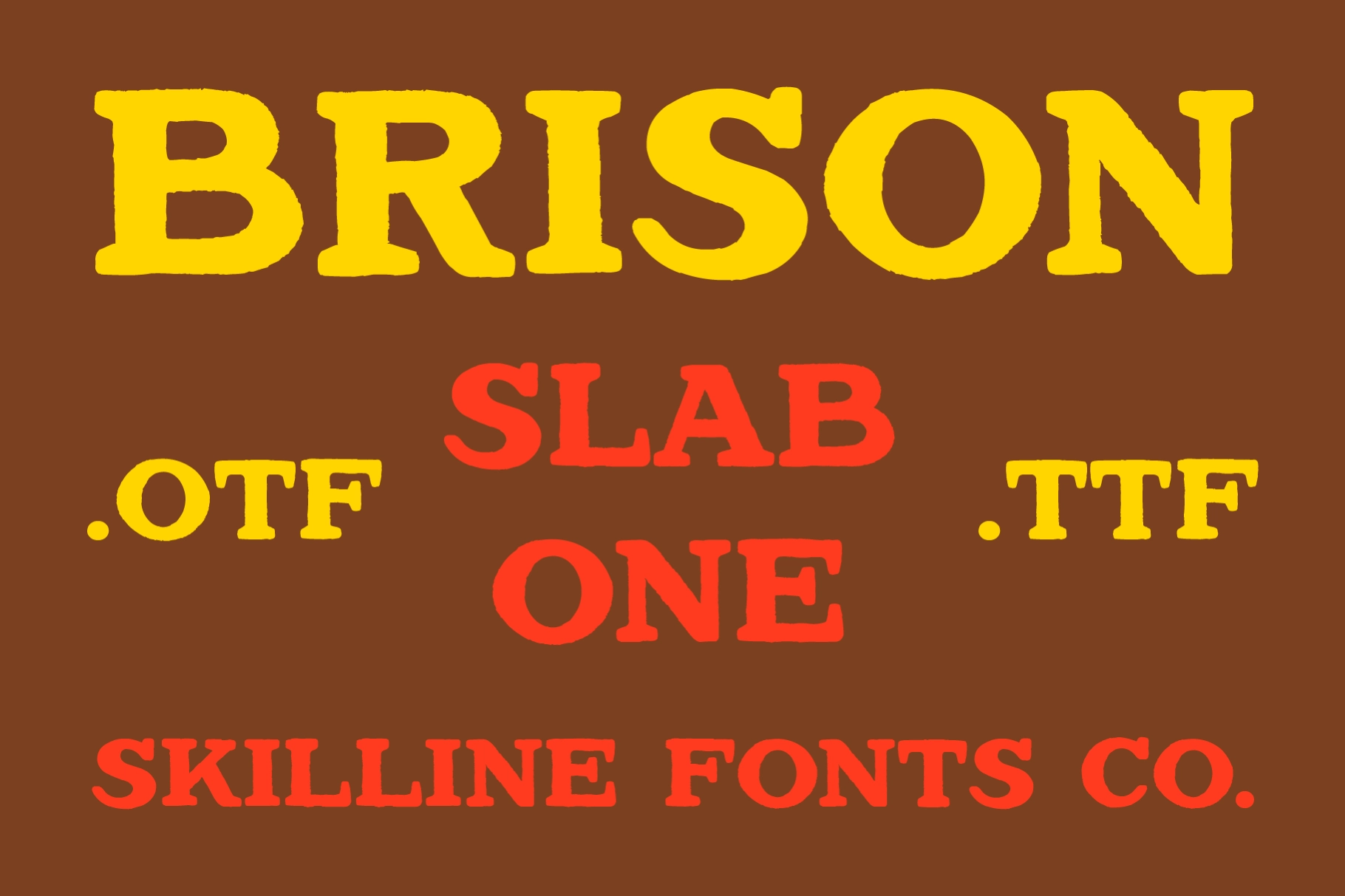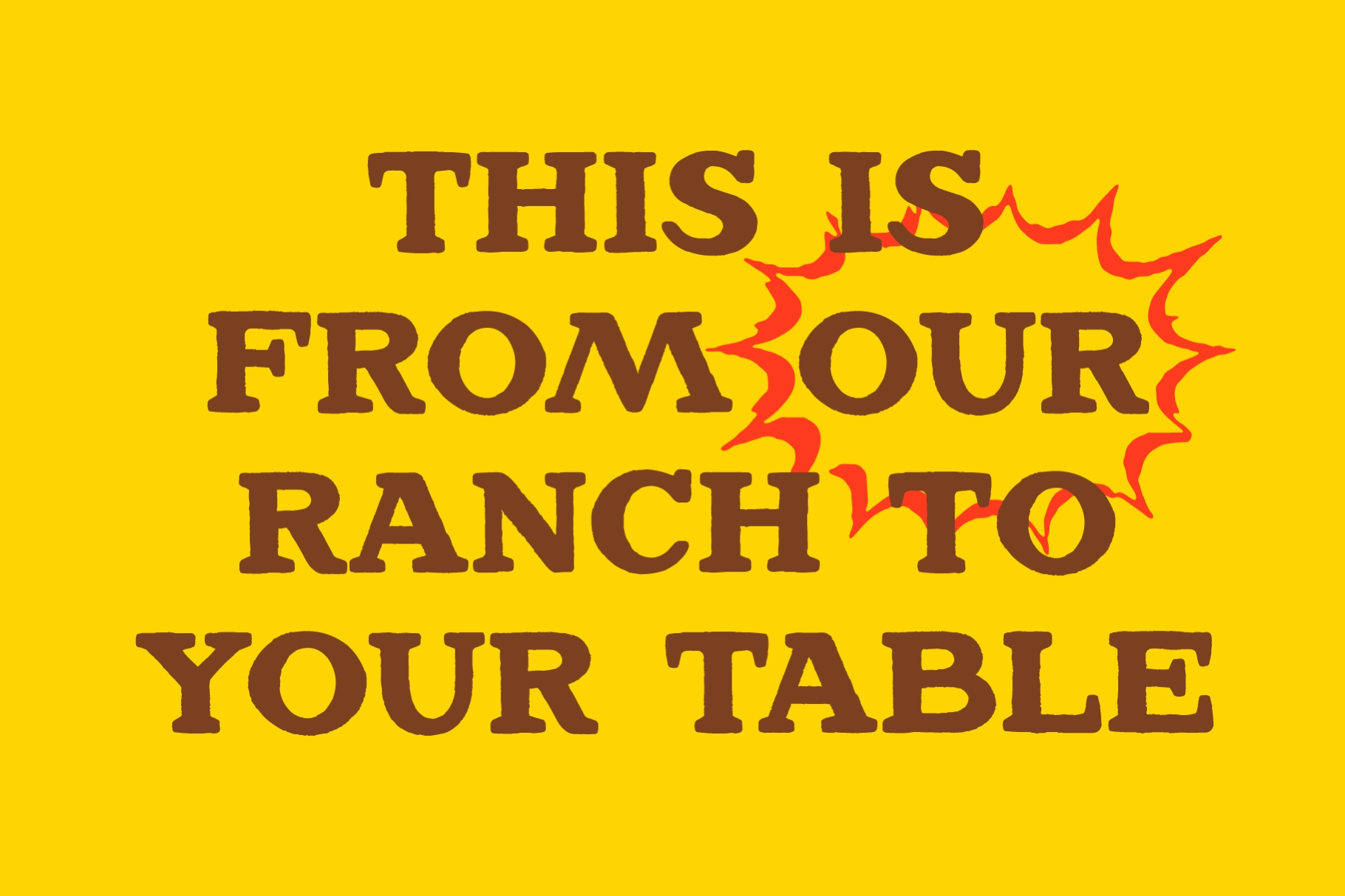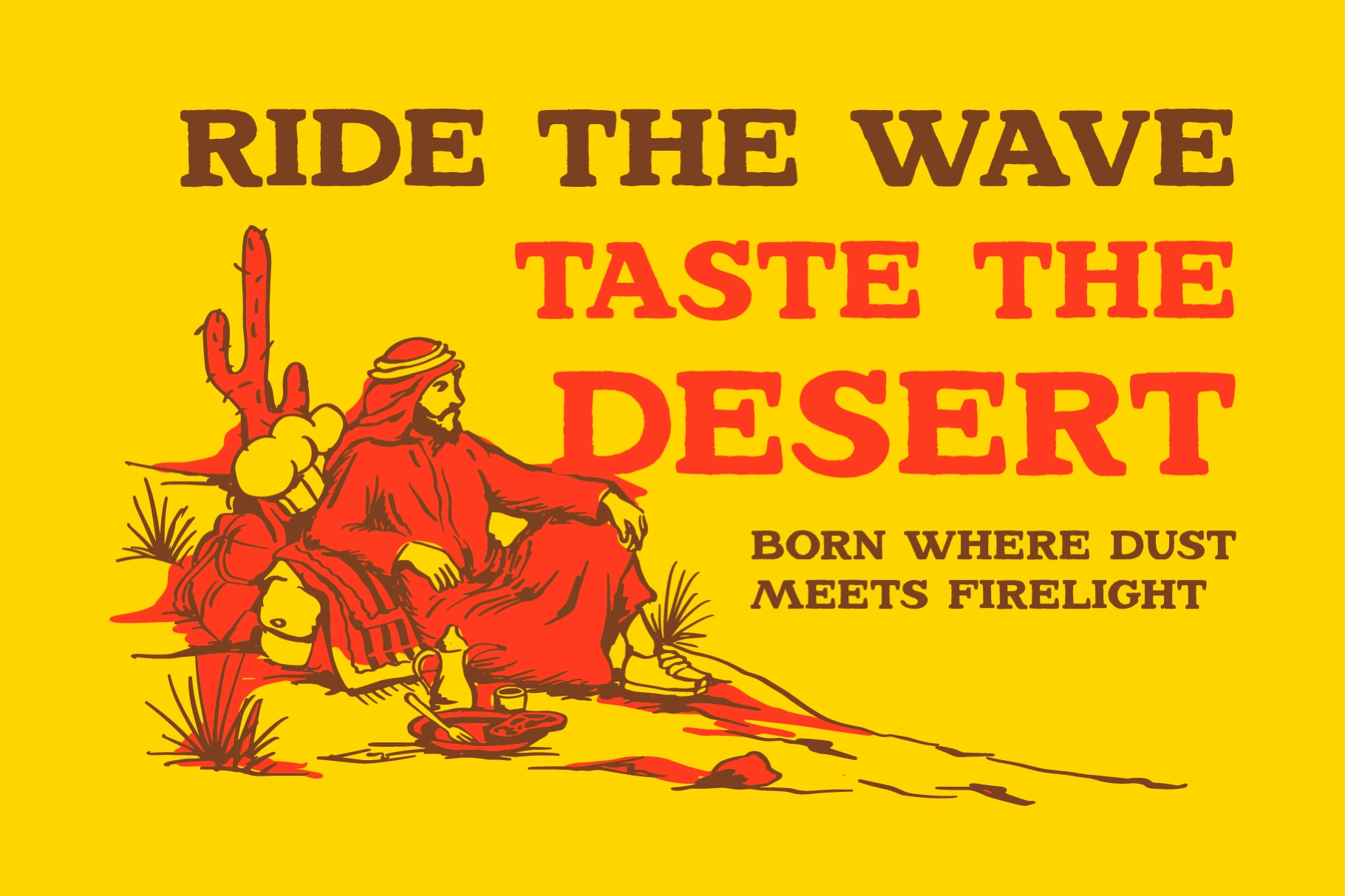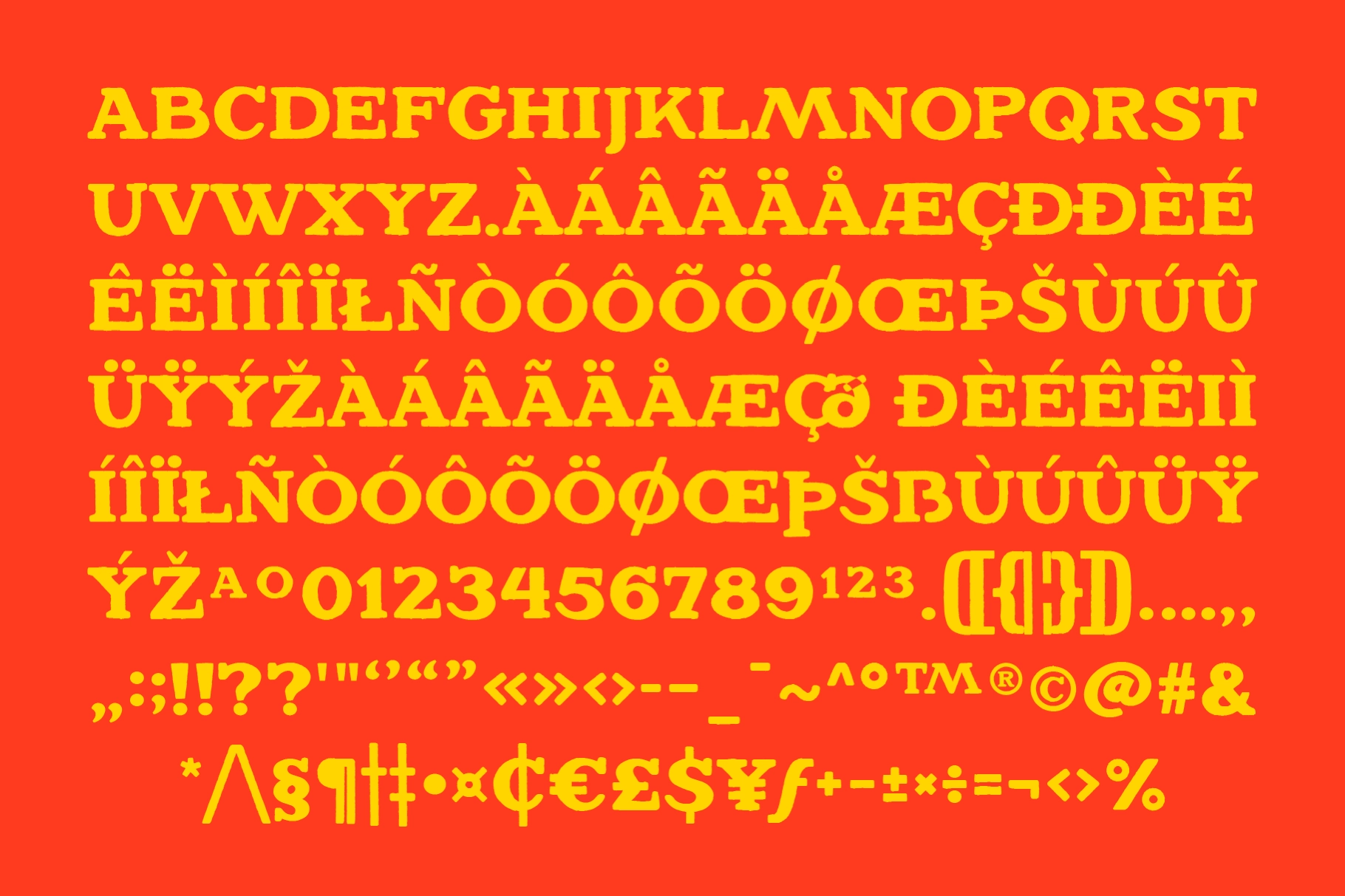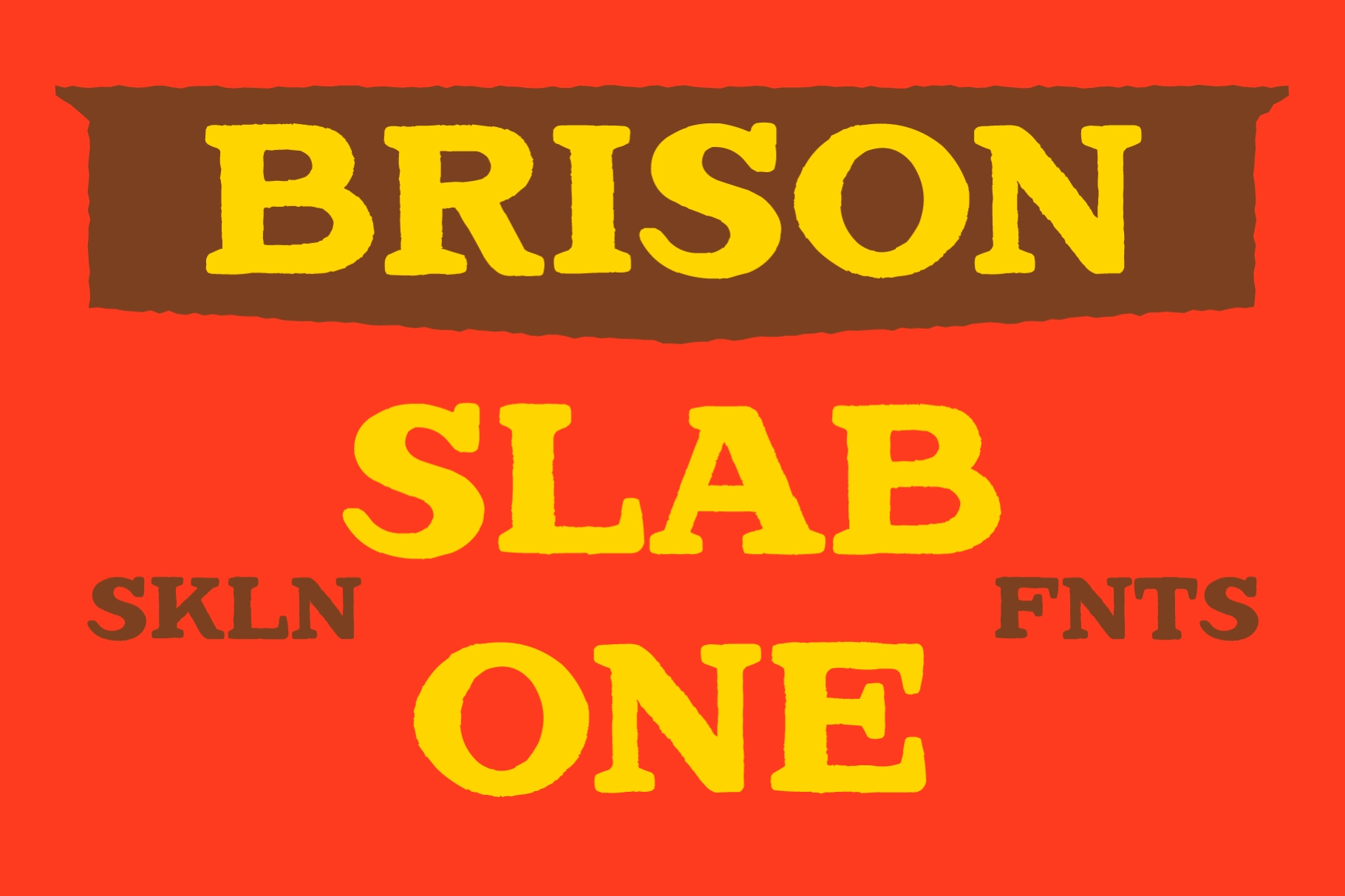
SFC Brison Slab One - Vintage Cowboy Font
This retro slab serif typeface is bold, blocky, and proudly rough around the edges . Heavy letterforms, squared serifs, and handmade texture give it an old ranch character, perfect for display typography.
Brison Slab One works for barbecue branding, smokehouse menus, western posters, ranch logos, rodeo flyers, hot sauce labels, diner graphics, brewery packaging, cowboy-themed merch, sticker packs, album covers, event signage, food truck visuals, and more. Its sturdy construction keeps headlines readable, while the rough detailing gives every word a worn-in Americana finish.
• Handcrafted Display Typeface
• Western Inspired Style
• Numerals & Punctuation